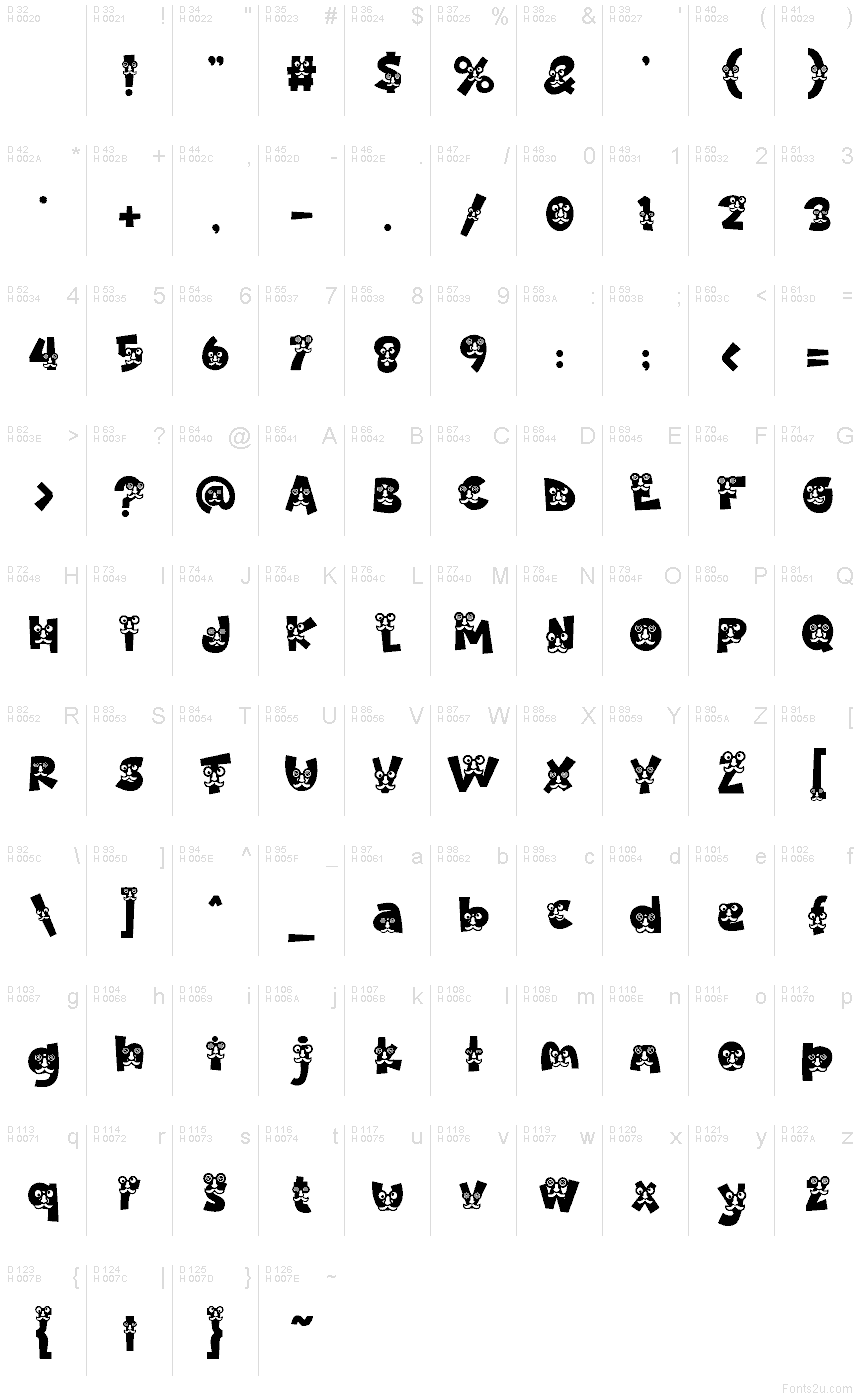
Night Clown Mask
Night Clown Mask font by PutraCetol Studio is a whimsical, cartoon-like display font with decorative and expressive elements that express plenty of visual details. It has a bold weight through stroke thickness and spacing for high contrast between the text and background. The overall character look contributes to an interesting novelty style presented in an entirely original manner.